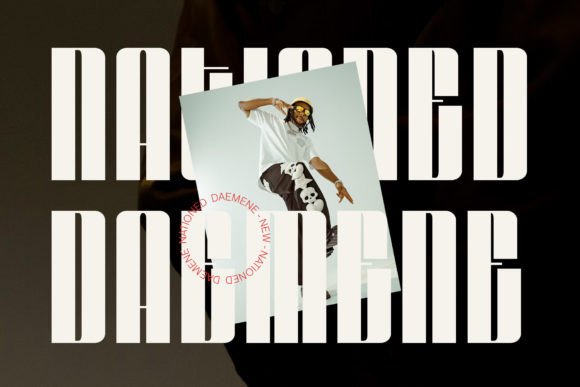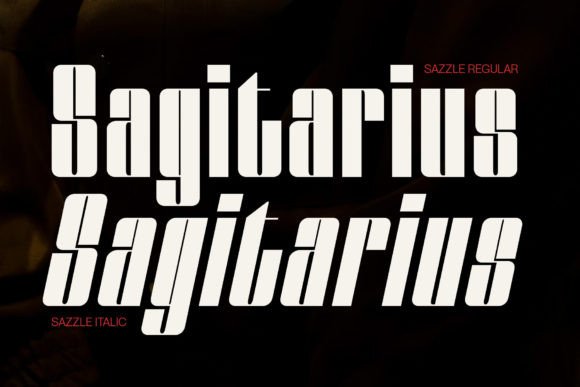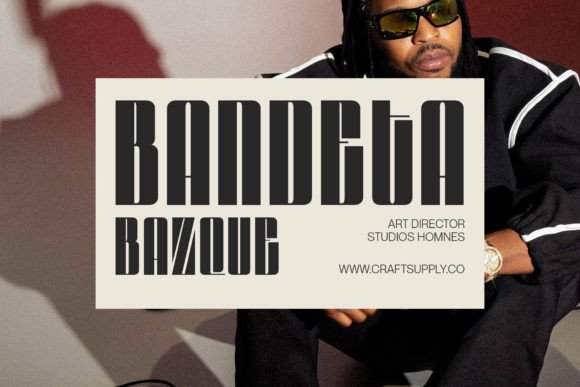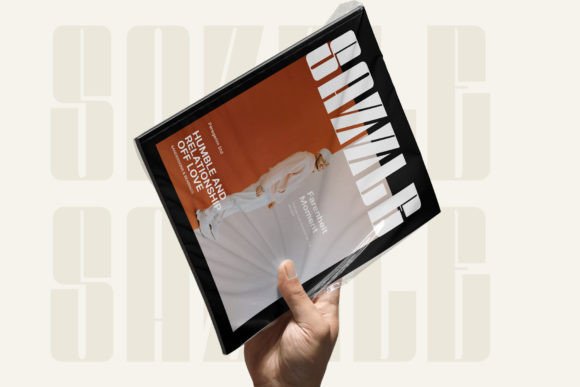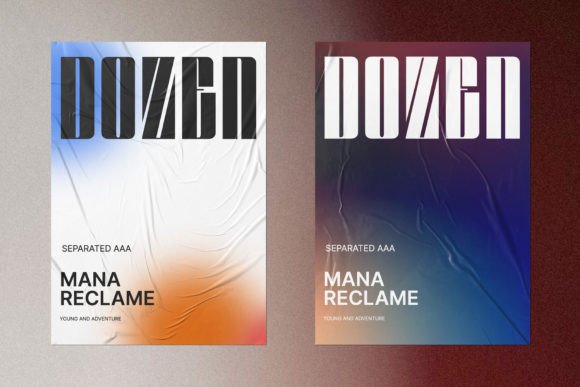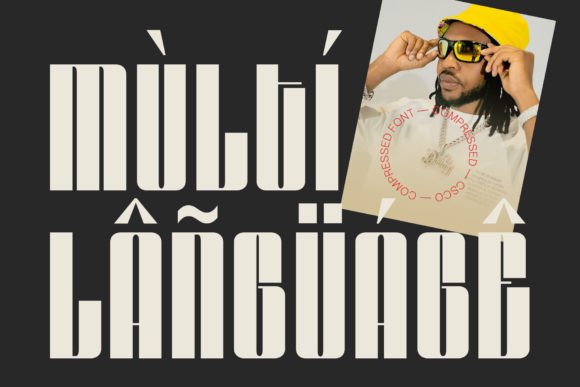
Introduction to Sazzle Font
Introducing Sazzle – Compressed Sans Serif: A sleek typeface that demands attention with its tightly compressed design and minimal white space.
With its clean lines and modern appeal, Sazzle adds a touch of sophistication to your projects, making an unignorable, bold statement This typeface is ideal for greeting cards, packaging, brand identity, posters, or any purpose to make your design project look eye-catching and trendy.
Sazzle Font offers exceptional quality and versatility, making it a valuable addition to your design toolkit. Whether you’re creating for personal projects or commercial use, Sazzle Font delivers professional results.